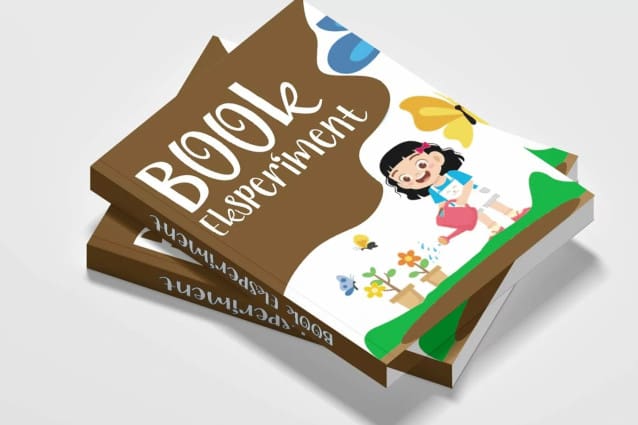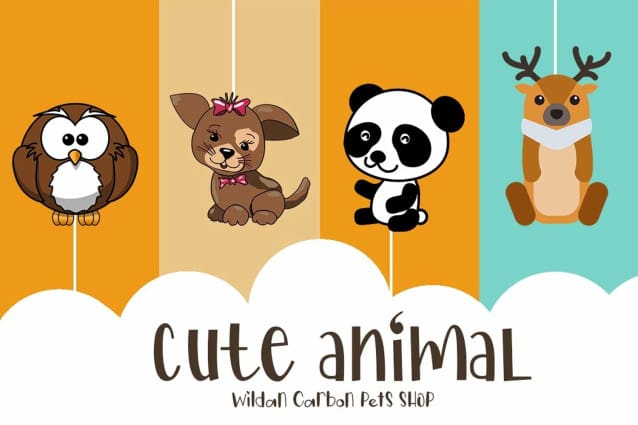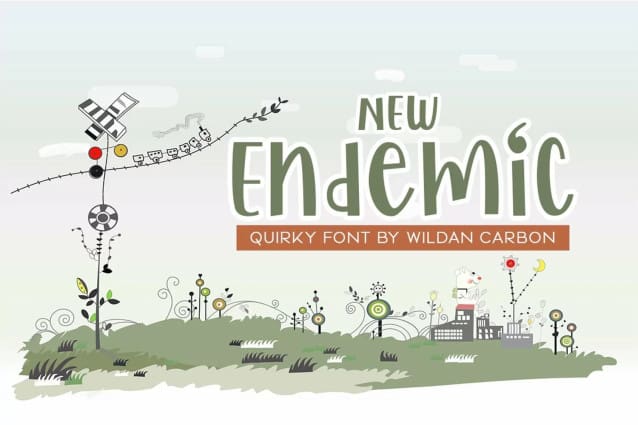
New Endemic Font
New Endemic Font is a fun and quirky handwritten font with a unique style, playful look & feel! embodies fun.Enjoy this font and make more beautiful your product.